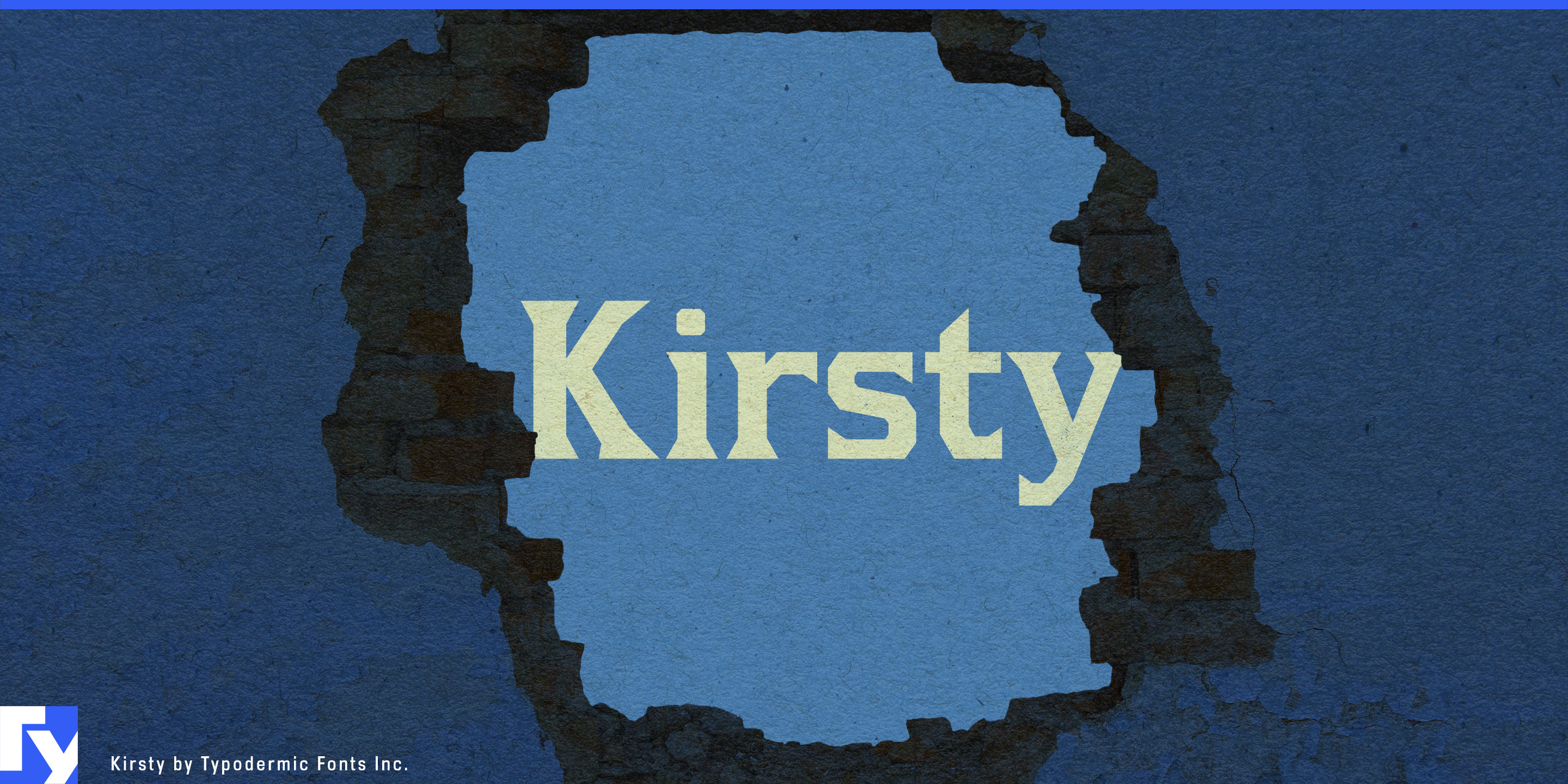
Kirsty
American heritage food branding has a familiar problem. Reach too quickly for a cowboy slab and the label starts looking like a saloon sign; add rustic script and it can drift into generic handmade territory. Kirsty offers another route. Its angular, sturdy forms suggest old commercial lettering, railway signs, roadside businesses, and regional packaging without going fully Western.
That makes Kirsty especially useful for premium pantry products with strong regional or process-driven identities. Barbecue sauces, hot sauces, steak sauces, mustard, hot honey, marinades, dry rubs, pickles, relishes, smoked salts, fermented condiments, jerky, preserves, and regional spice blends can use it for brand names, product lines, flavors, heat levels, and short label copy. It carries enough American vernacular character to support smoke, fire, fermentation, preservation, and traditional recipes without turning the package into period costume.
Contemporary barbecue, smokehouse, wood-fire, and regional restaurants offer the same opportunity at a larger scale. Chef-led barbecue groups, live-fire restaurants, modern roadhouses, Southern restaurants, wood-fired grill concepts, and destination smokehouses can use Kirsty across exterior names, menus, wall graphics, sauce labels, catering materials, merchandise, and packaged retail products.
The same visual language works naturally on the equipment behind those kitchens. Commercial smokers, live-fire grills, charbroilers, planchas, pizza ovens, griddles, rotisseries, meat grinders, slicers, sausage equipment, heavy-duty mixers, cast-iron cookware, and carbon-steel pans all benefit from lettering that feels substantial and mechanical without becoming anonymous industrial typography. Kirsty can carry product-family names, model series, control-panel headings, showroom graphics, packaging, and trade-show displays.
Restaurants and food halls in former depots, mills, garages, factories, and market buildings provide another strong setting. Kirsty can acknowledge brick, steel, timber, old tile, and industrial architecture without recreating historical signage literally.
Specialty food retail extends that character to modern butcher shops, smokehouse counters, pantry stores, public markets, regional-product shops, specialty grocers, and food halls. Department names, counter signage, house-brand packaging, tote bags, labels, and seasonal campaigns can feel mercantile and American without becoming nostalgic for its own sake.
Kirsty’s strongest role is giving food brands, restaurants, and durable cooking products an American heritage signal without reaching for the usual cowboy slab, rustic script, or faux hand-painted label.